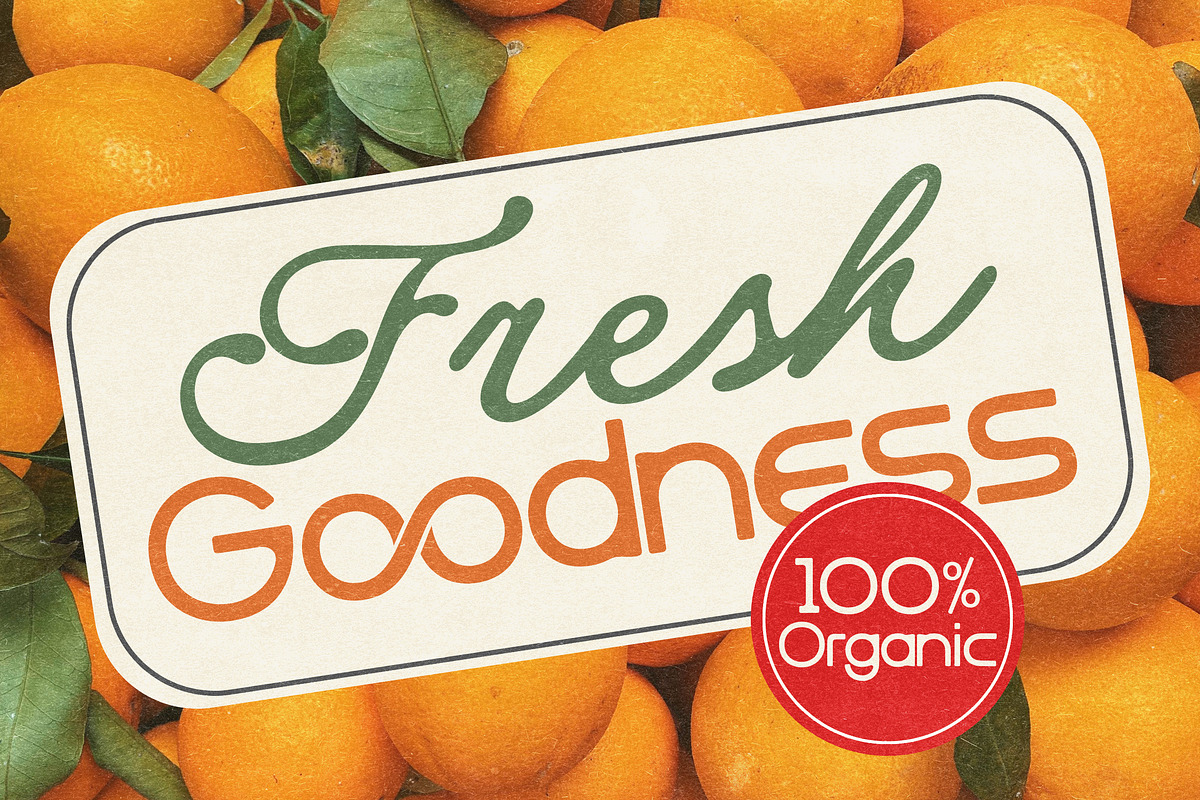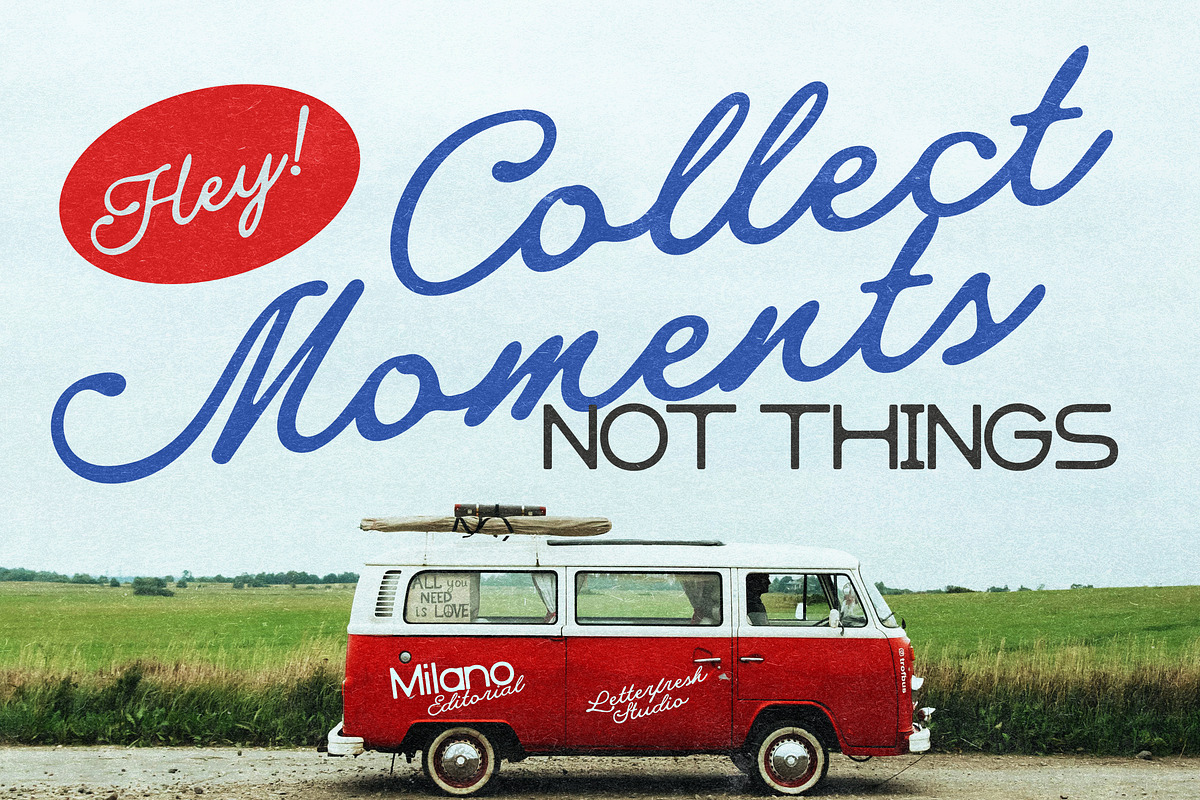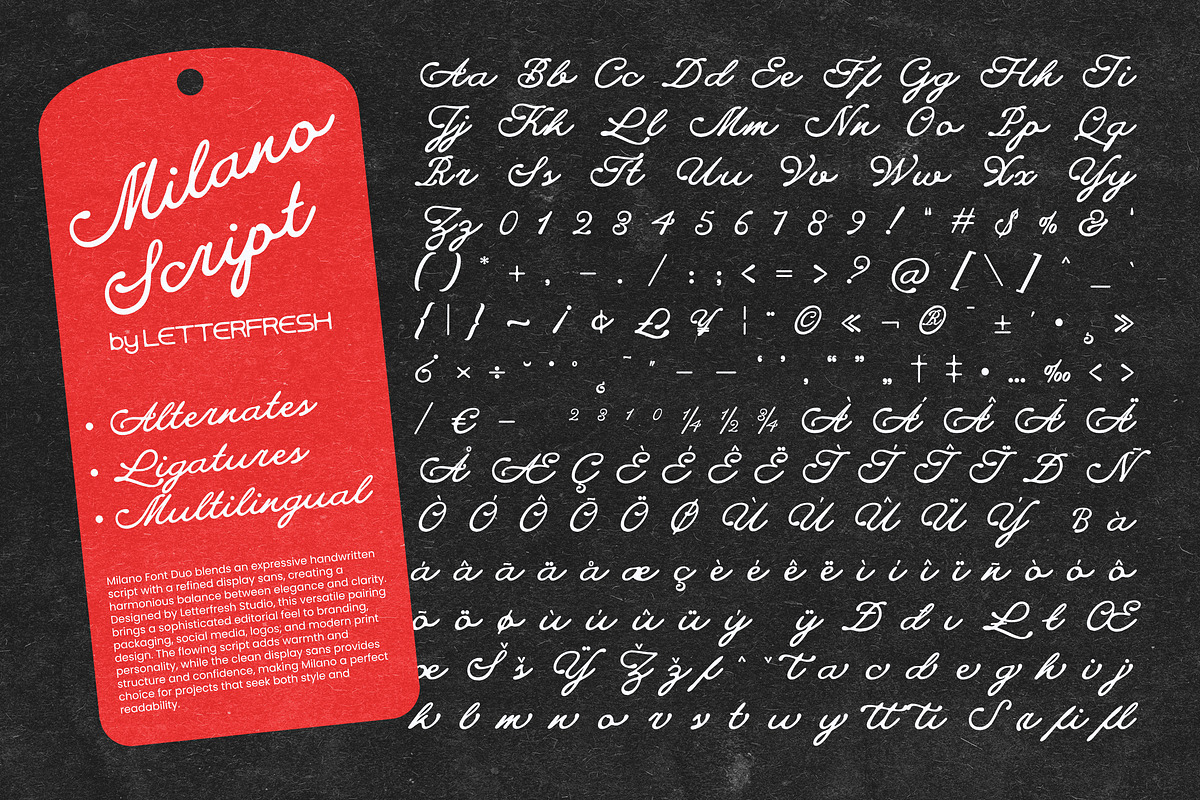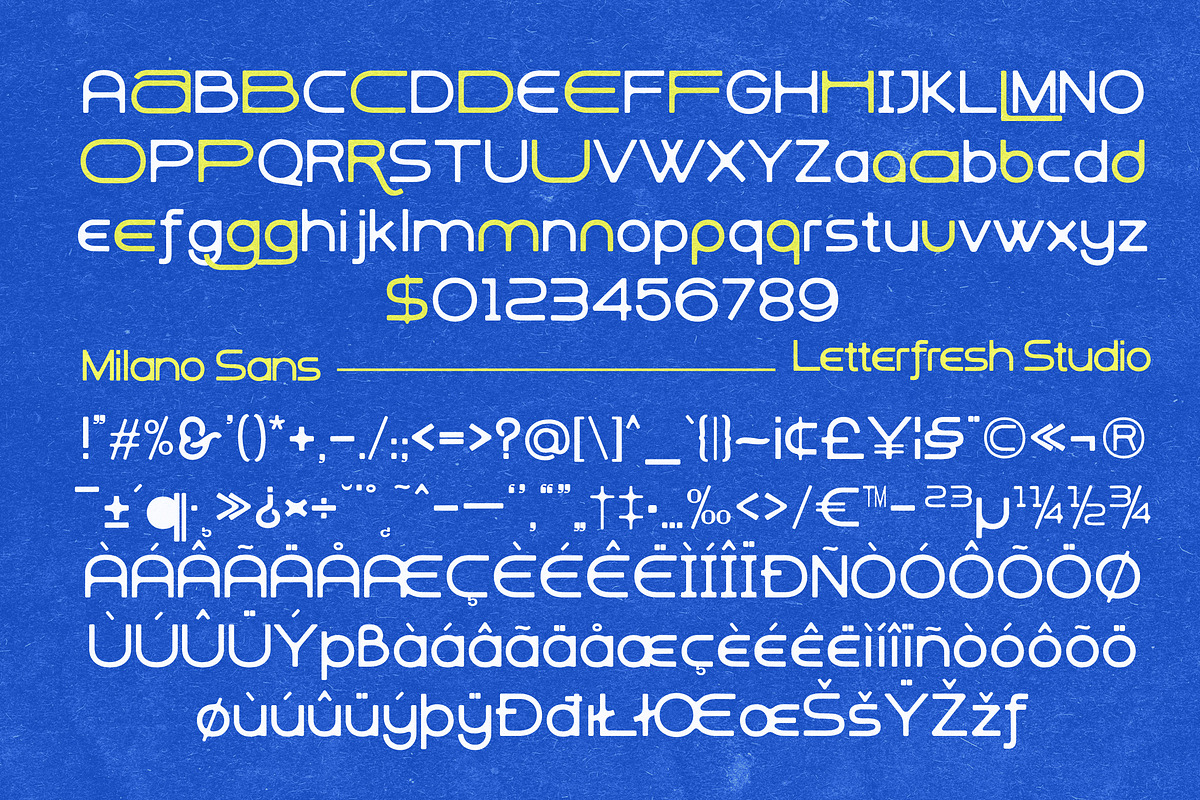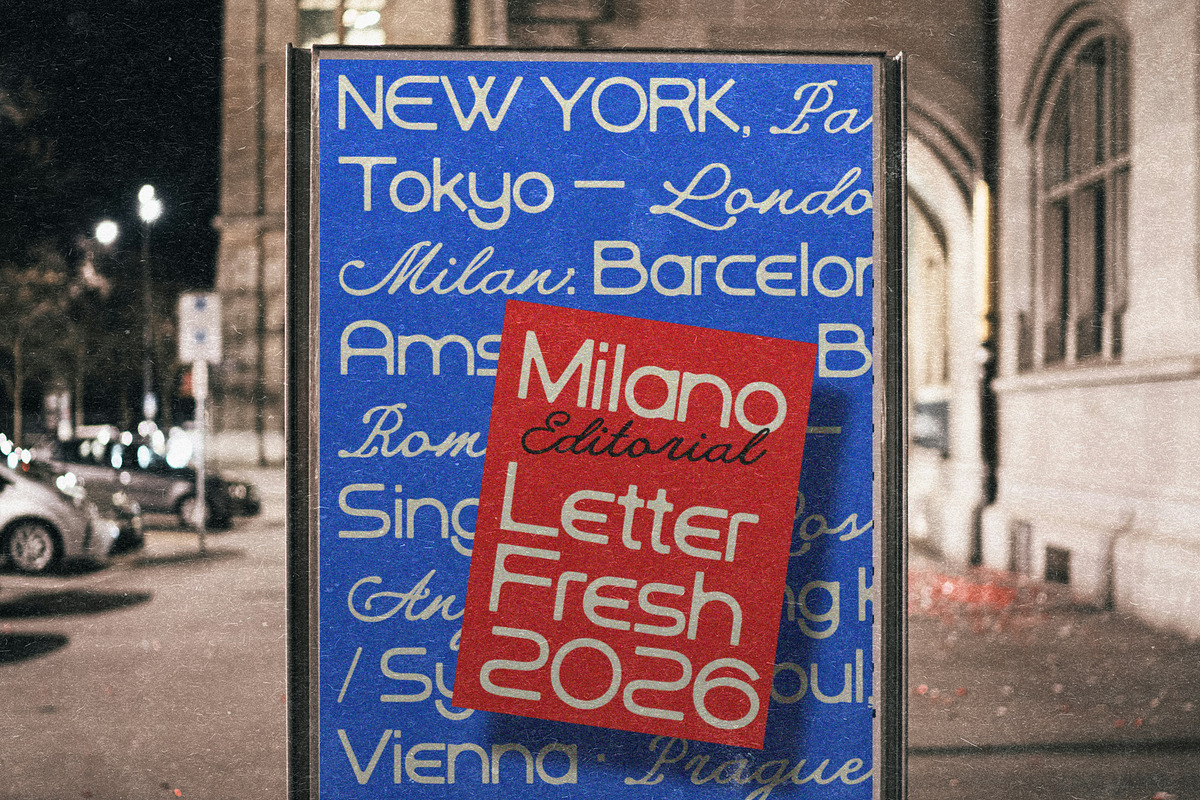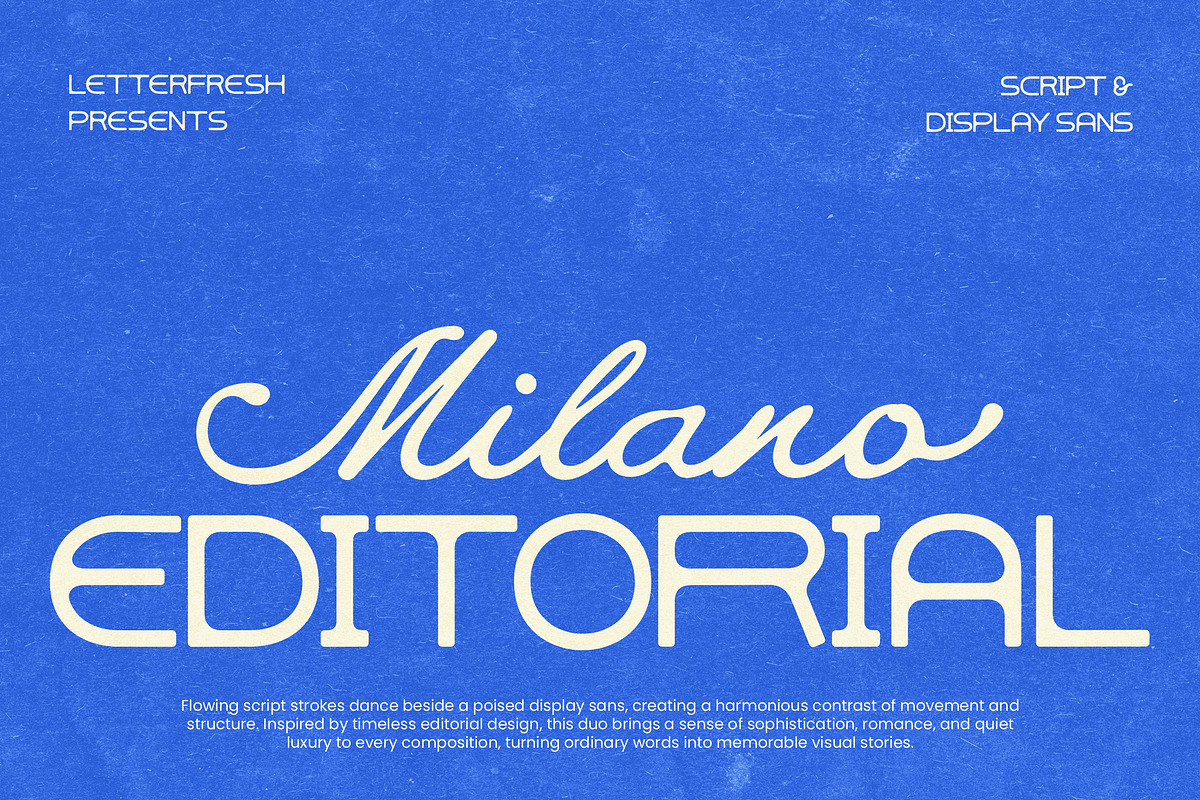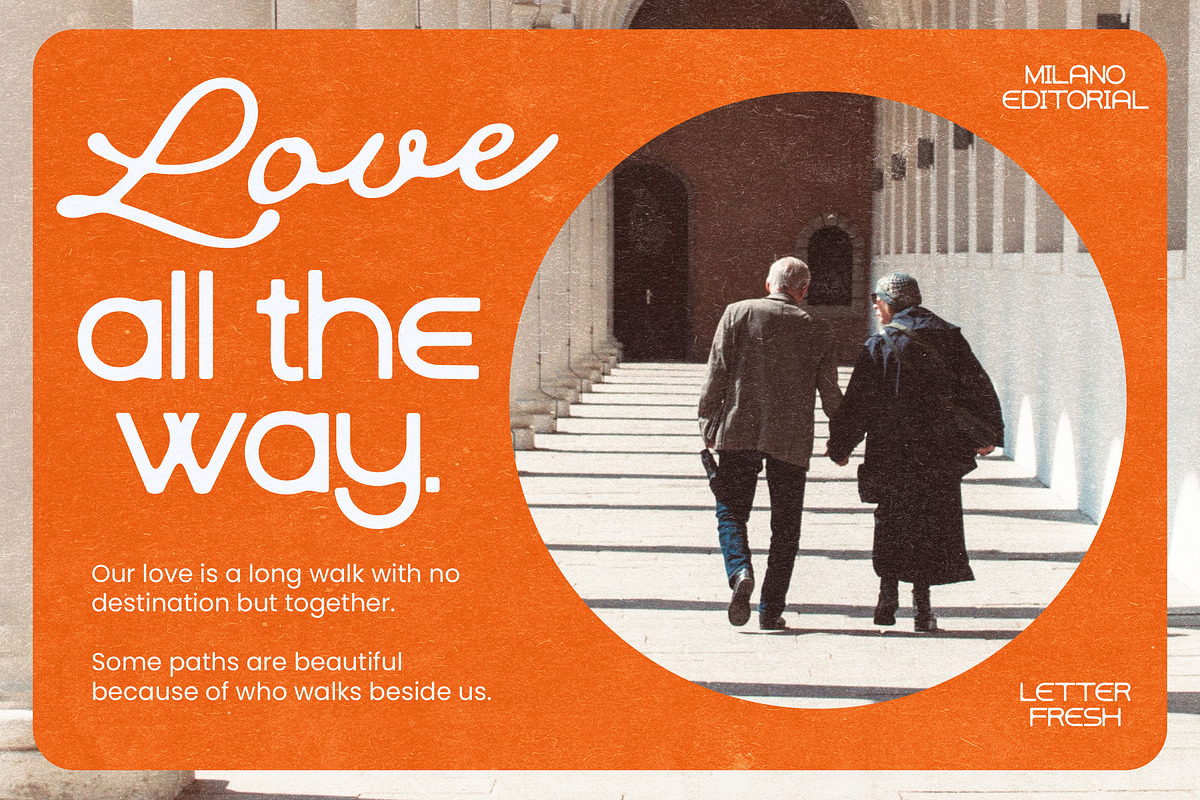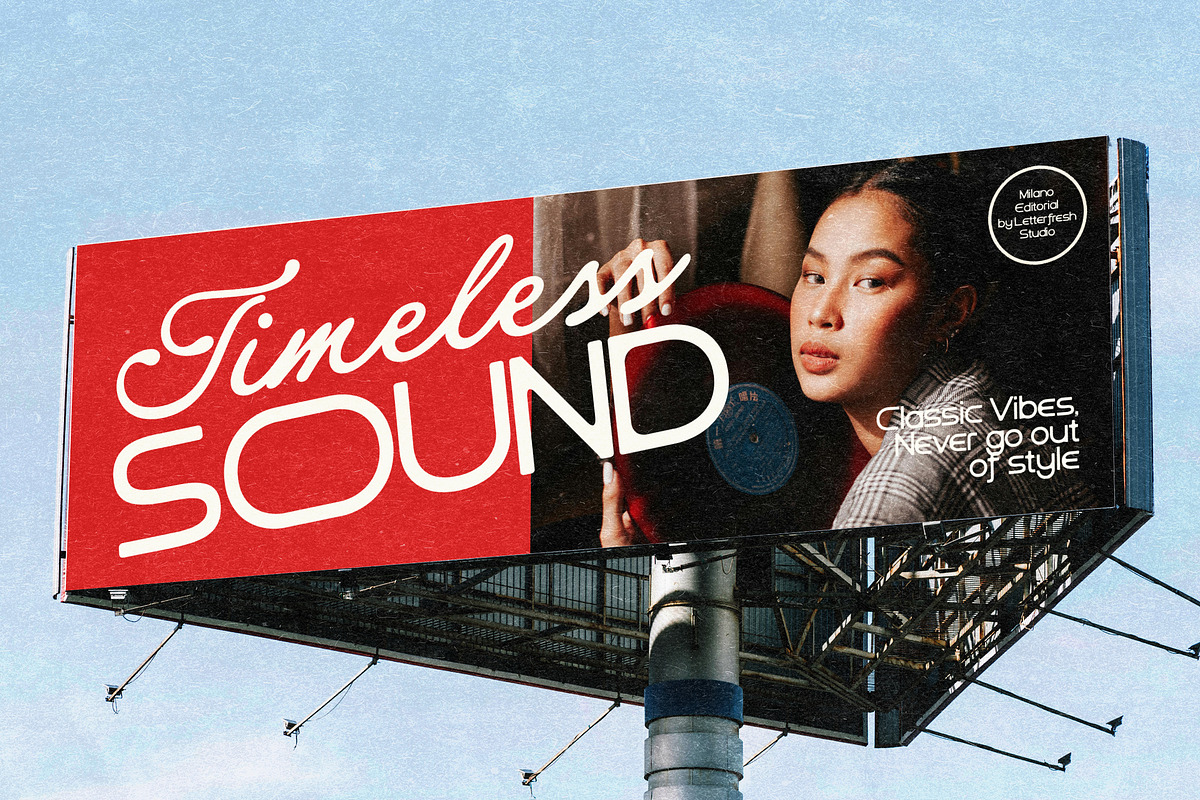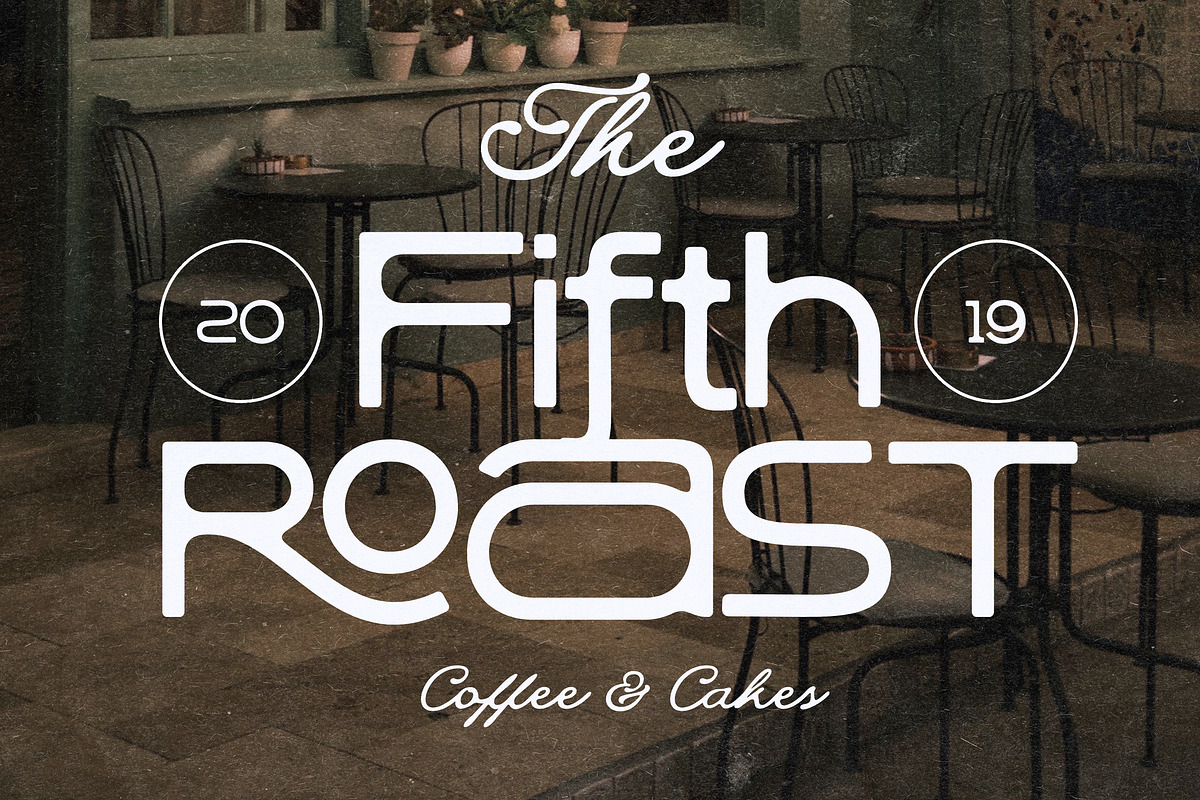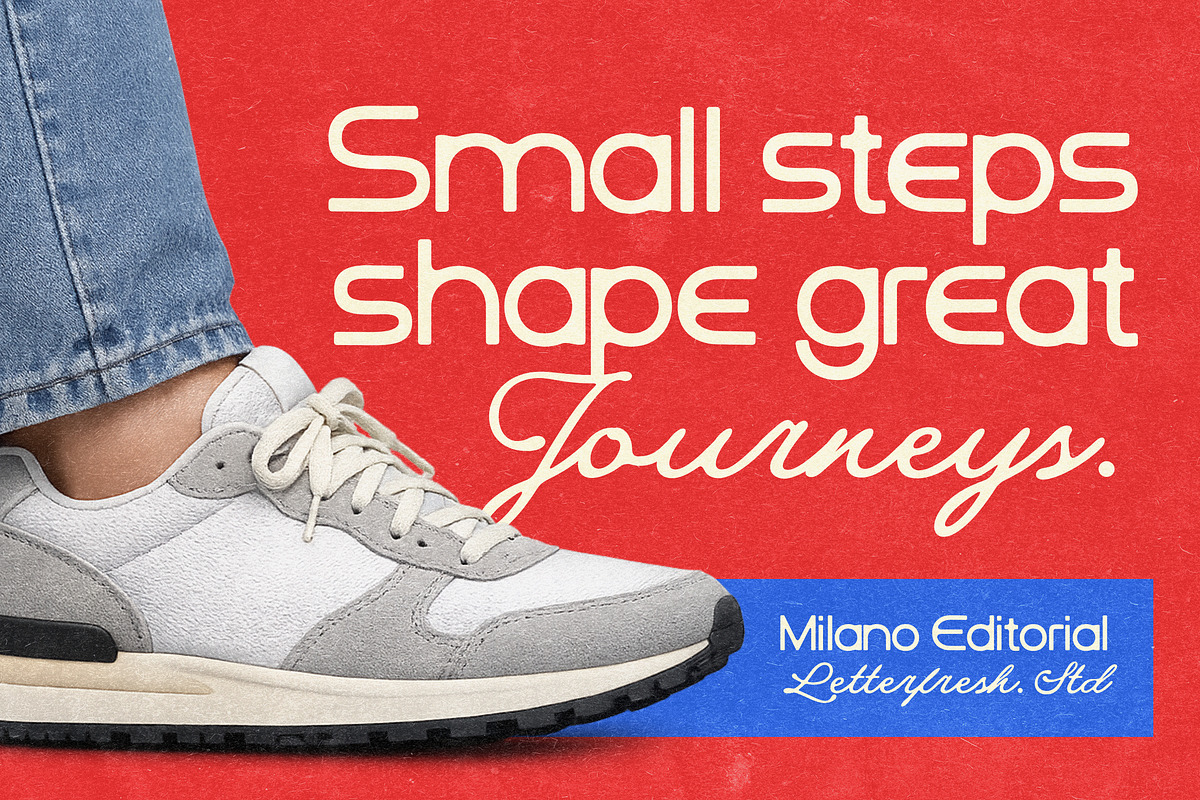
Milano Editorial Vintage
Milano Editorial is a refined font duo that pairs graceful flowing script with a sophisticated display sans, creating a timeless balance of elegance and structure. Inspired by classic editorial aesthetics and modern luxury, this combination brings warmth, personality, and premium appeal to every design. The expressive script adds a touch of romance and fluidity, while the clean geometric sans delivers confidence and clarity. Together, they create stunning visual harmony for branding, fashion, magazines, packaging, wedding stationery, social media, and high-end creative projects.
Perfect for
Luxury branding
Editorial & magazine layouts
Fashion and beauty campaigns
Logos & visual identity
Premium packaging
Wedding invitations
Posters & headlines
Elegant script with smooth, flowing strokes
Stylish Art Deco-inspired display sans
Timeless editorial aesthetic
High contrast between expressive and structured styles
Ideal for creating luxurious, memorable typography